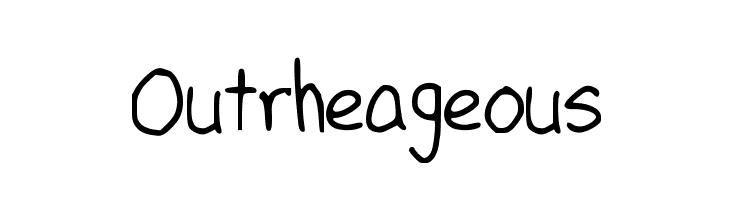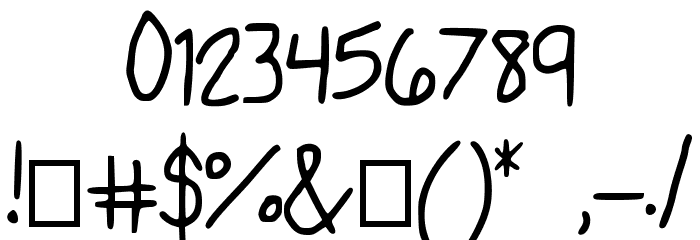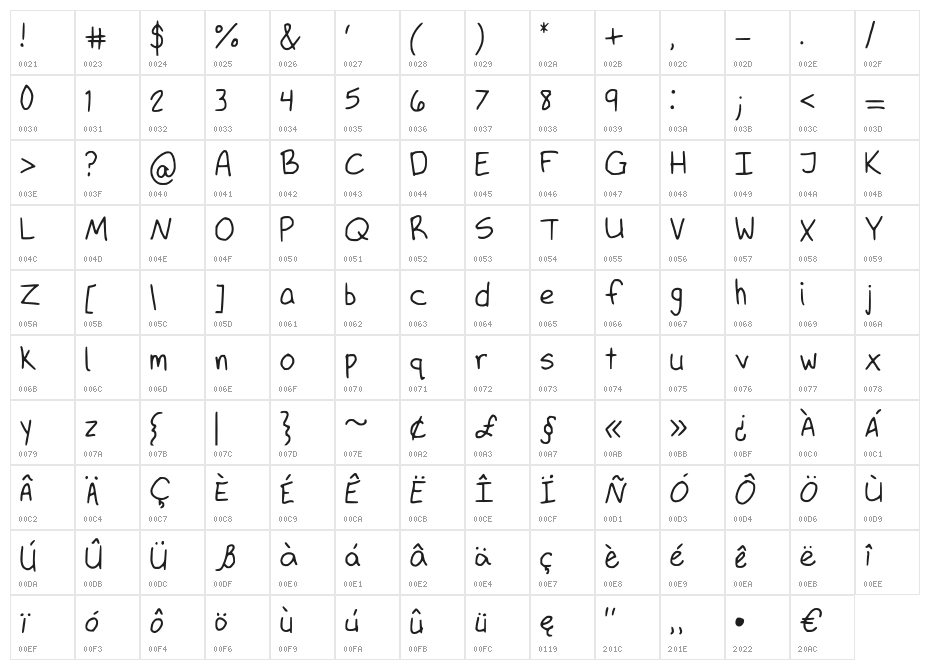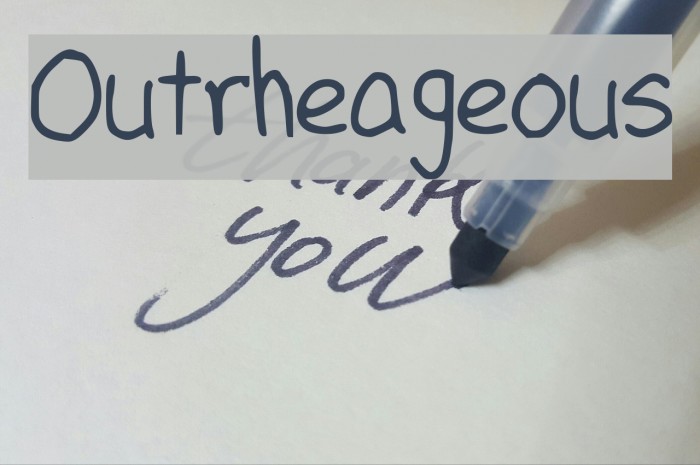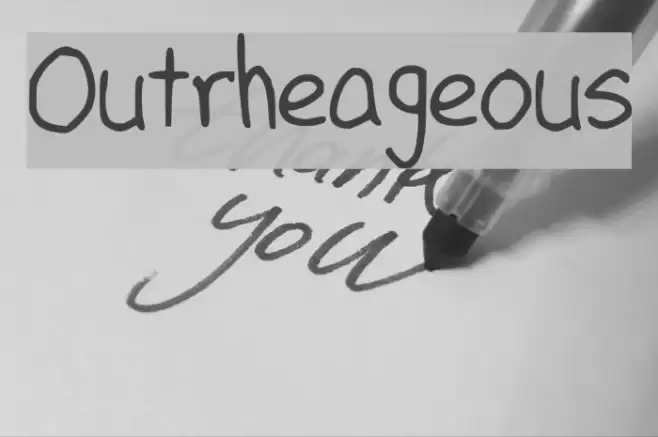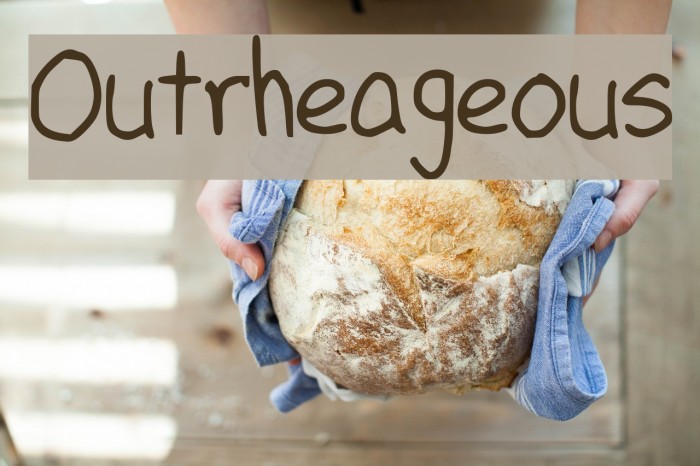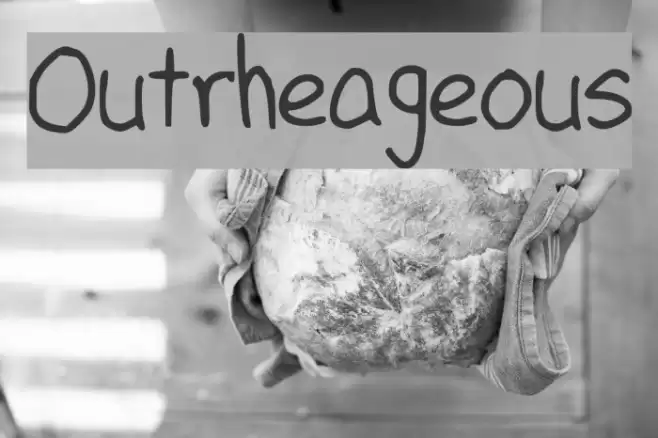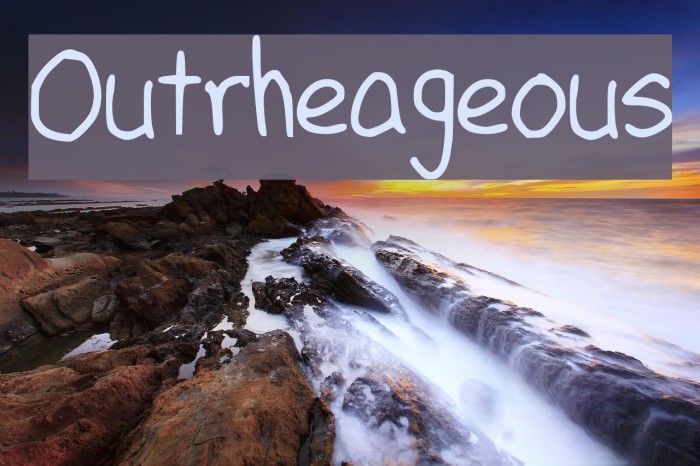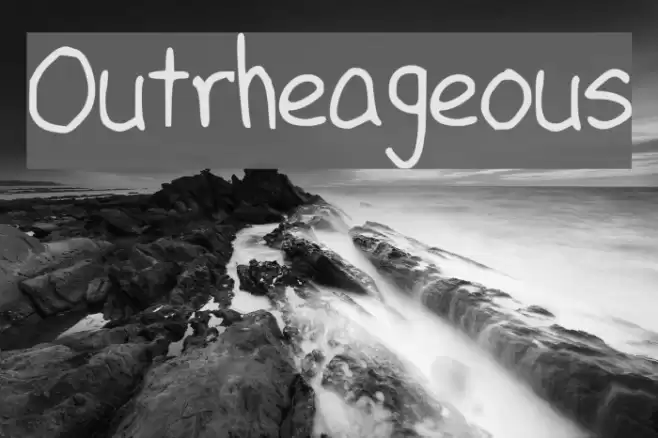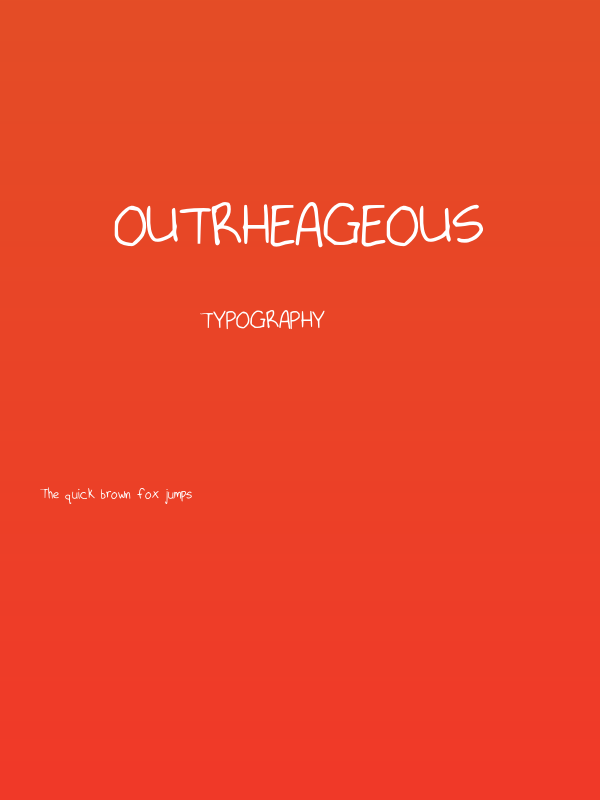
Outrheageous Font
Outrheageous Description
This font presents a playful and informal handwritten style, characterized by its irregular, slightly uneven strokes that mimic the natural flow of handwriting. The uppercase letters are bold and slightly rounded, while the lowercase letters maintain a consistent height with a casual, friendly appearance. The numerals are clear and legible, matching the overall informal aesthetic. Special characters are well-integrated, maintaining the same playful style. This font is ideal for projects that require a personal touch, such as greeting cards, invitations, or casual branding.
| Proposed Projects | Ideal for greeting cards, invitations, casual branding, and personal projects. |